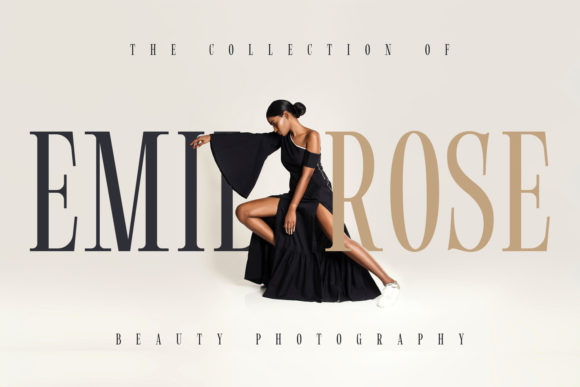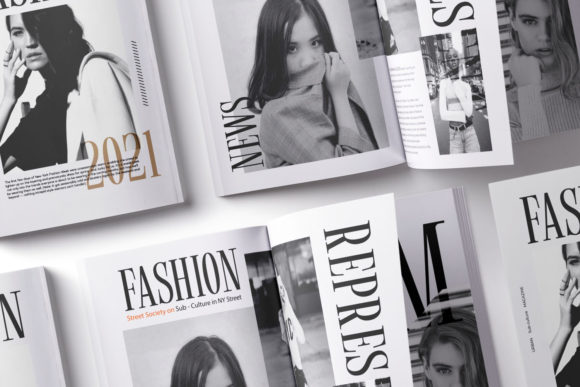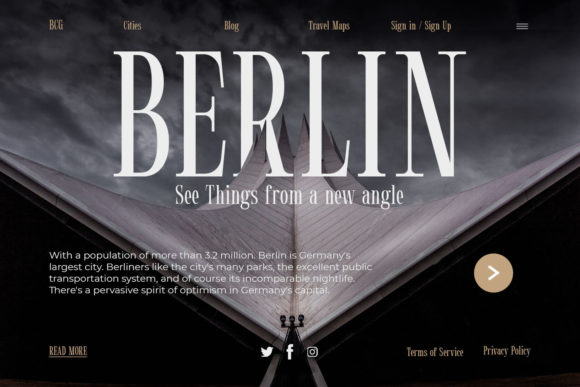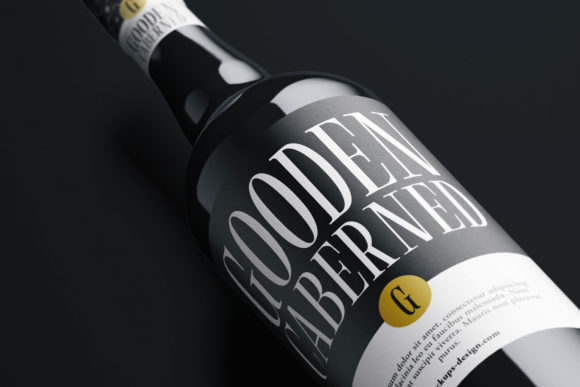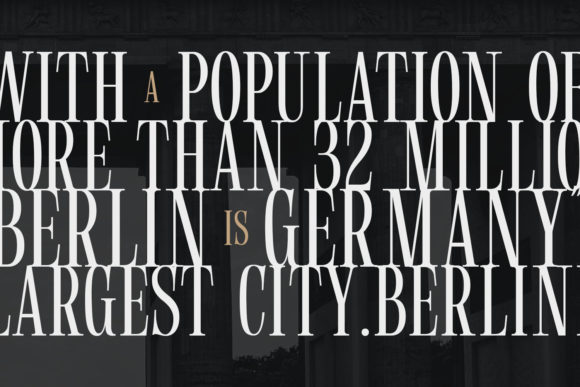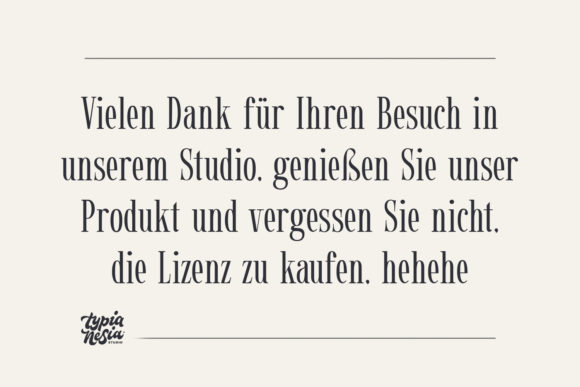
Introducing Gunstand Font: Elevate Your Designs with Modern Serif Elegance
In the world of typography, fonts play a crucial role in conveying messages, expressing creativity, and capturing the essence of a brand. For designers and crafters seeking a modern serif font that exudes sophistication and versatility, Gunstand Font is an exceptional choice. This modern serif font is designed to make a statement, whether it’s used on busy backgrounds or as a standalone headline. In this article, we’ll explore the features, benefits, and usage ideas of Gunstand Font, helping you unlock its full potential in your designs.
What is Gunstand Font?
Gunstand Font is a contemporary serif font that boasts a unique blend of classic and modern elements. Its sleek lines, refined curves, and balanced structure make it an excellent addition to any design project. This font is perfect for designers who want to add a touch of elegance and sophistication to their work. With Gunstand Font, you can create stunning headlines, titles, and body text that will leave a lasting impression on your audience.
Key Features of Gunstand Font
- Modern Serif Design: Gunstand Font features a modern serif design that sets it apart from traditional serif fonts. Its sleek and refined lines make it perfect for designs that require a touch of sophistication.
- Versatility: This font is incredibly versatile and can be used on various backgrounds, including busy and textured surfaces.
- Excellent Legibility: Gunstand Font is designed to be highly legible, making it suitable for body text, headlines, and titles.
- Unique Character Set: The font comes with a unique character set, including uppercase and lowercase letters, numbers, and punctuation marks.
Benefits of Using Gunstand Font
Gunstand Font offers several benefits that make it an attractive choice for designers and crafters. Some of the key advantages include:
- Enhanced Visual Appeal: Gunstand Font adds a touch of elegance and sophistication to any design, making it perfect for projects that require a high level of visual appeal.
- Improved Readability: The font’s excellent legibility ensures that your text is easy to read, even on busy backgrounds.
- Time-Saving: With Gunstand Font, you can create stunning designs quickly and efficiently, saving you time and effort.
Usage Ideas for Gunstand Font
Gunstand Font is an incredibly versatile font that can be used in various design projects. Here are some usage ideas to get you started:
- Headlines and Titles: Use Gunstand Font to create stunning headlines and titles that grab attention and make a statement.
- Branding and Logo Design: This font is perfect for creating logos, business cards, and other branding materials that require a touch of sophistication.
- Web Design: Gunstand Font can be used to create visually appealing website headers, titles, and body text.
- Print Design: This font is suitable for print design projects, including brochures, flyers, posters, and more.